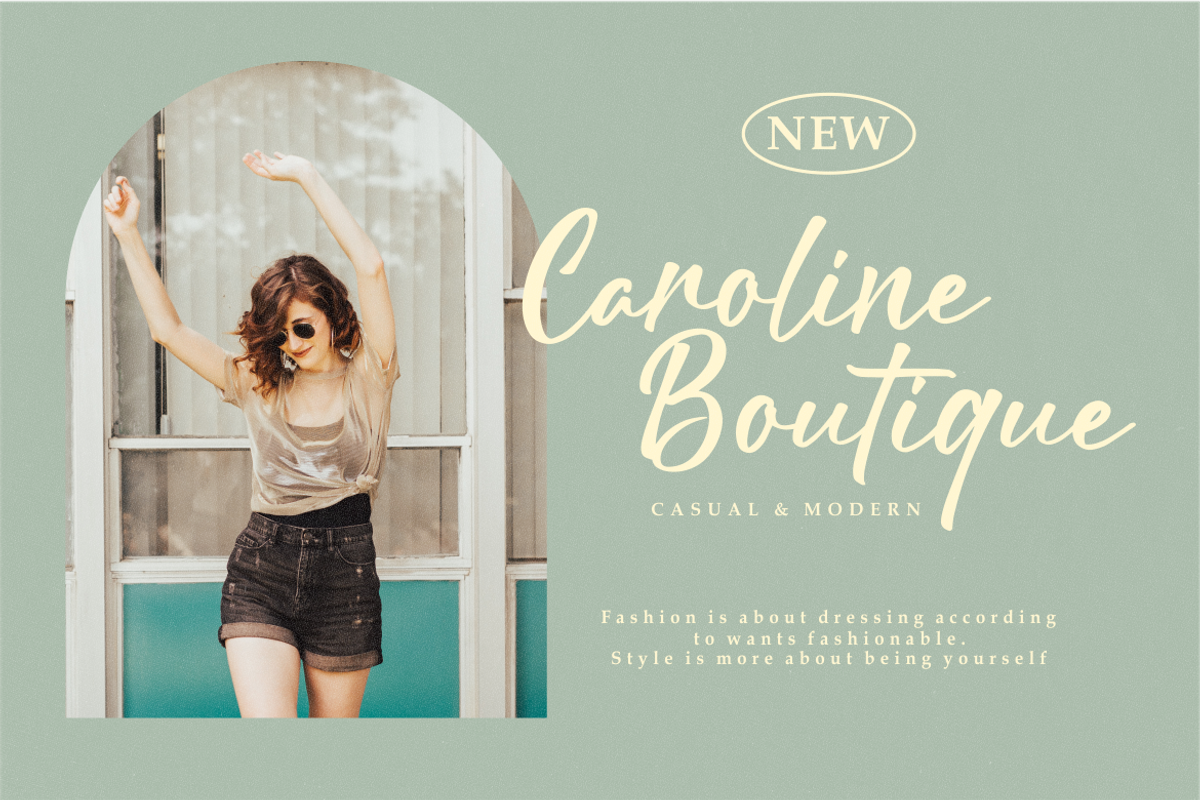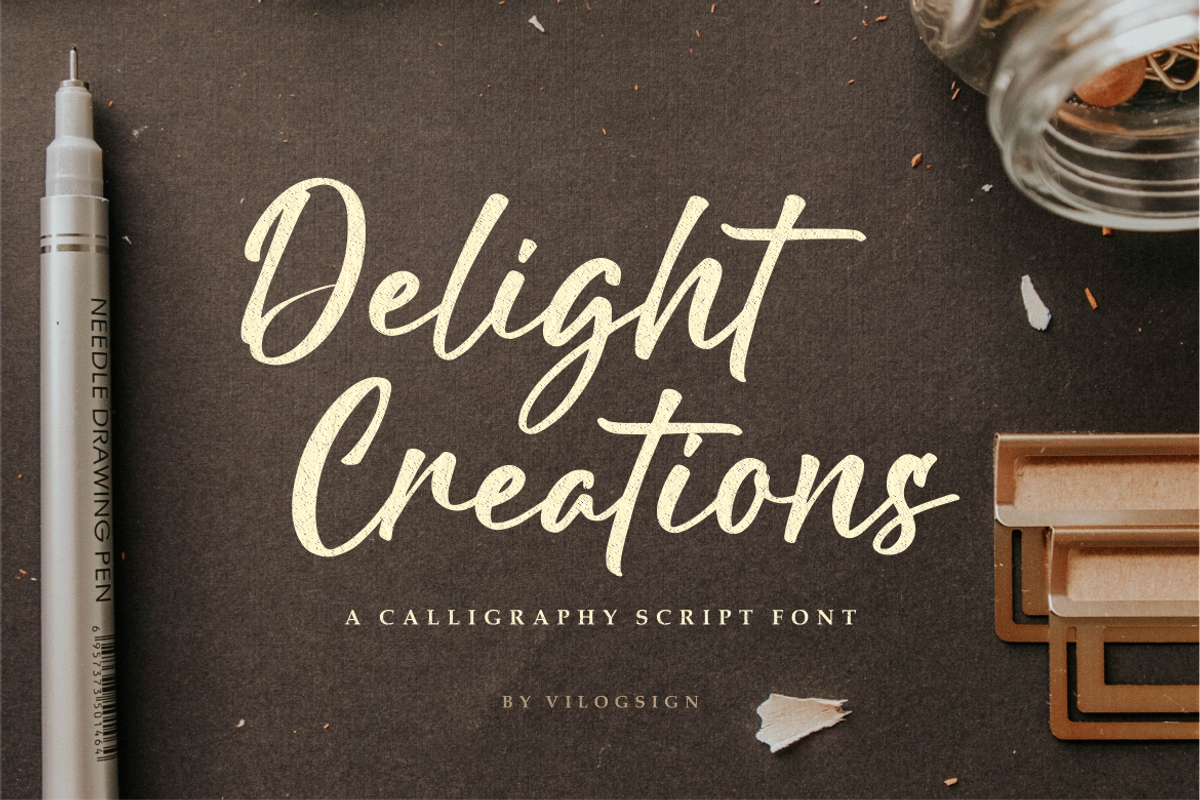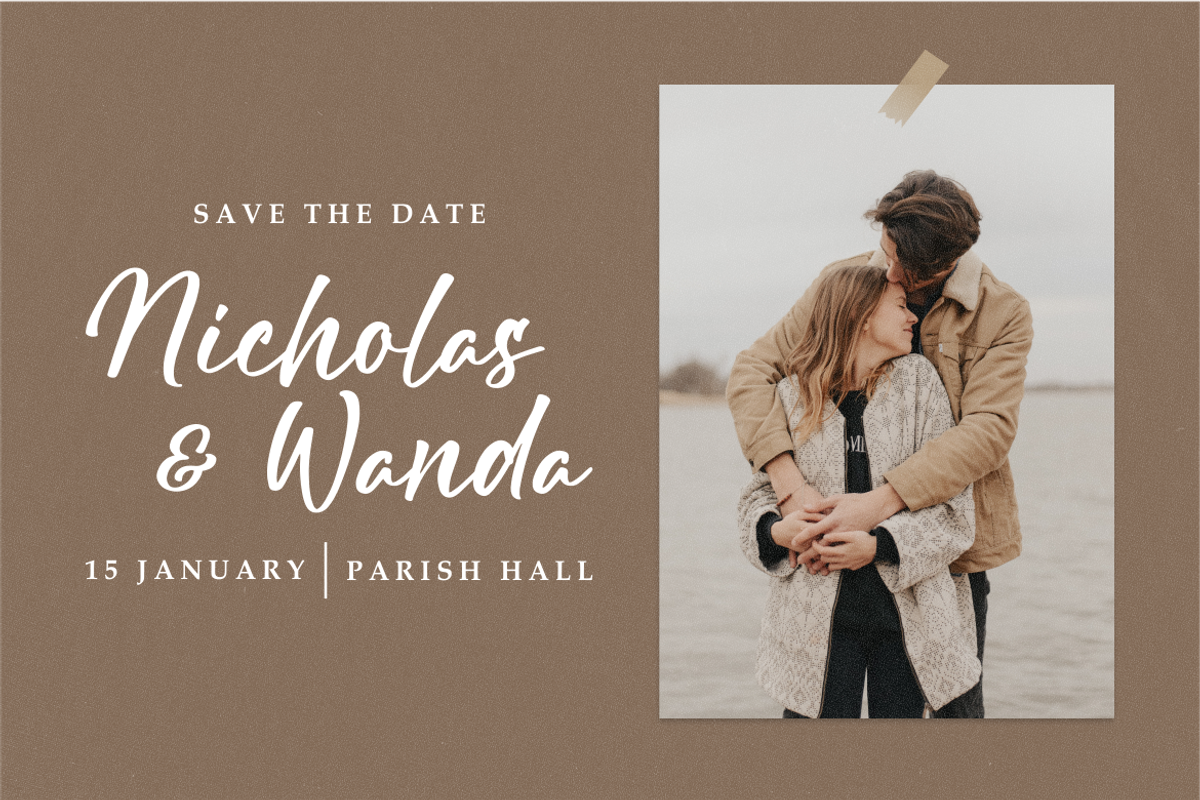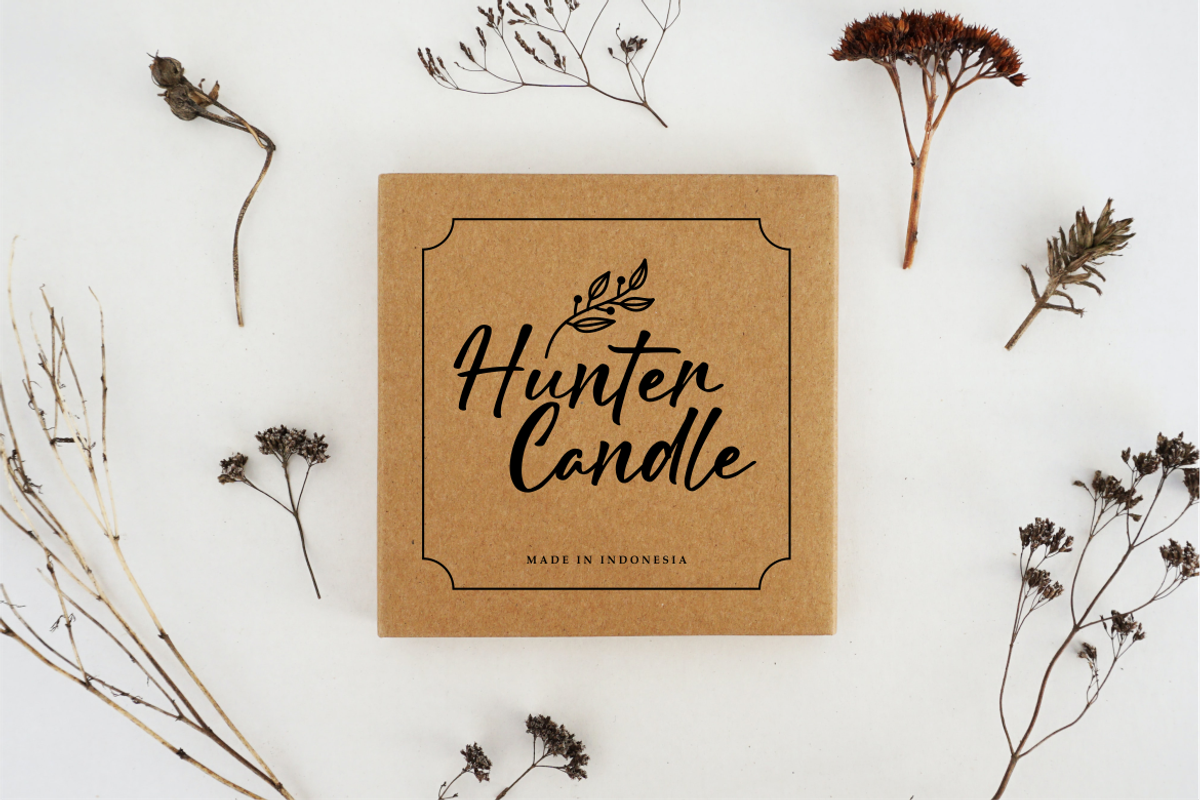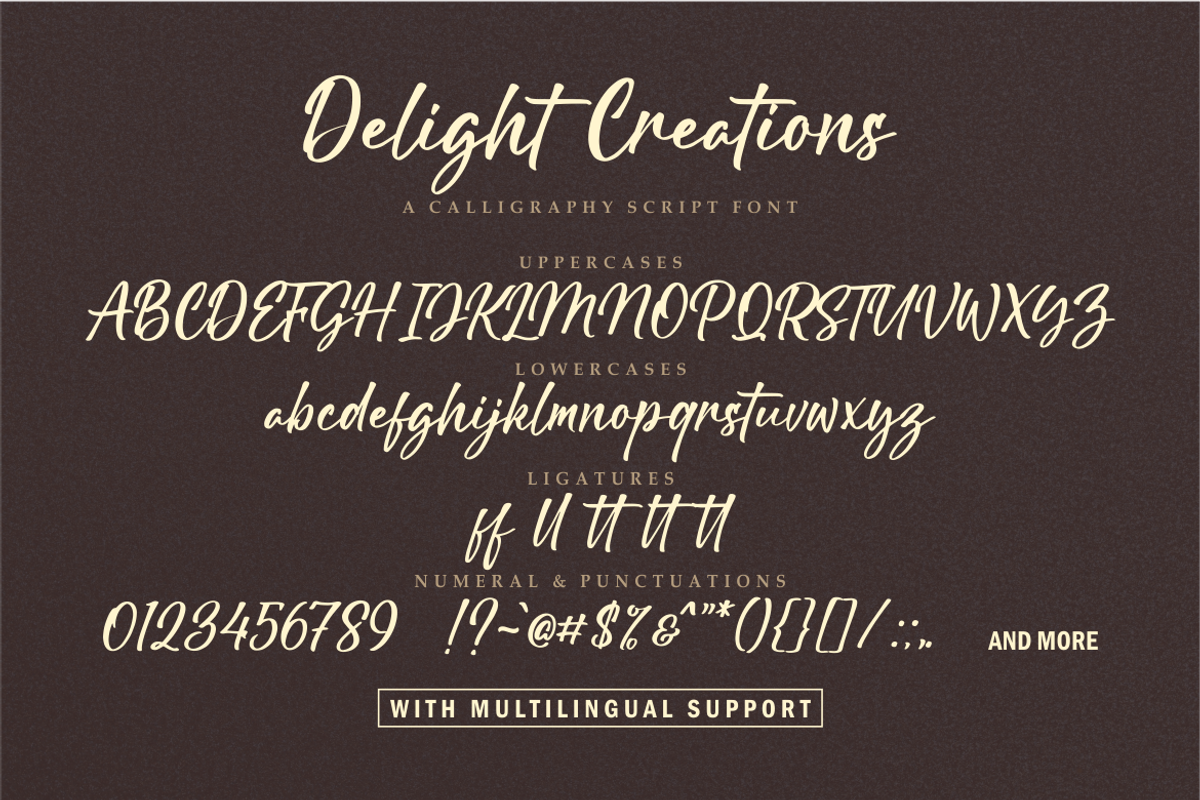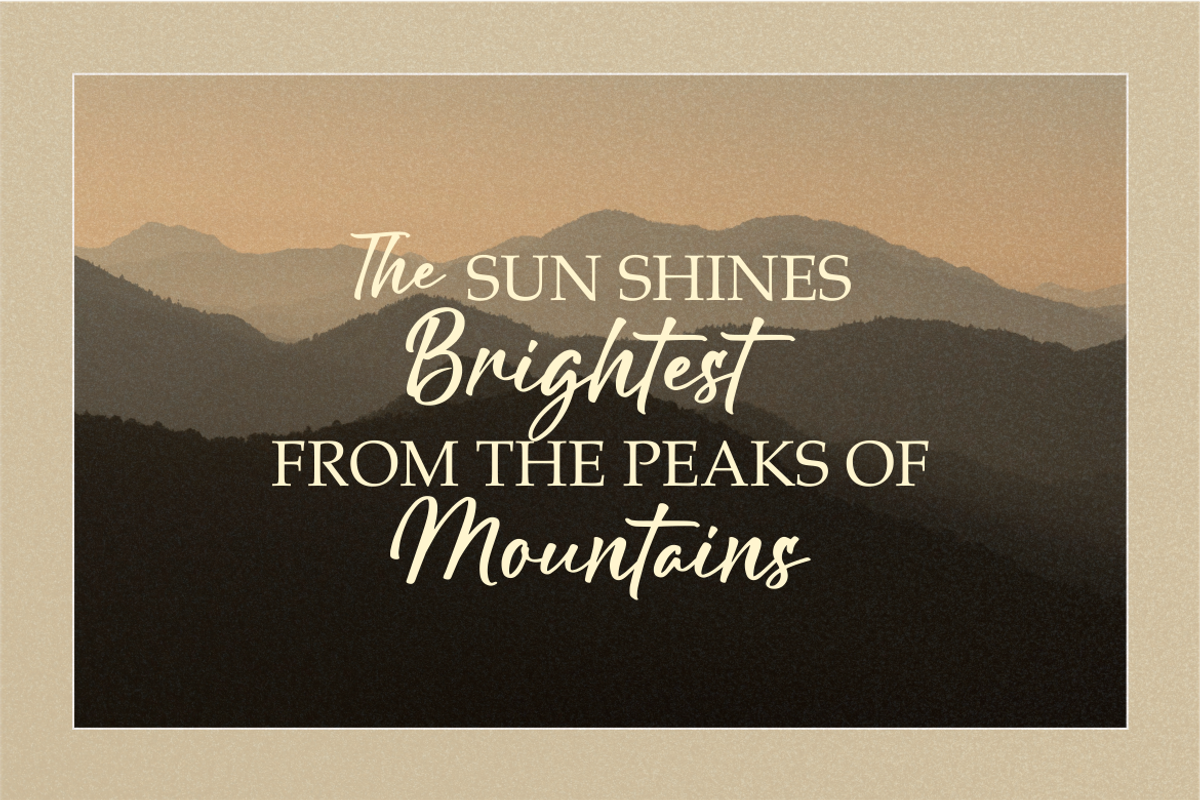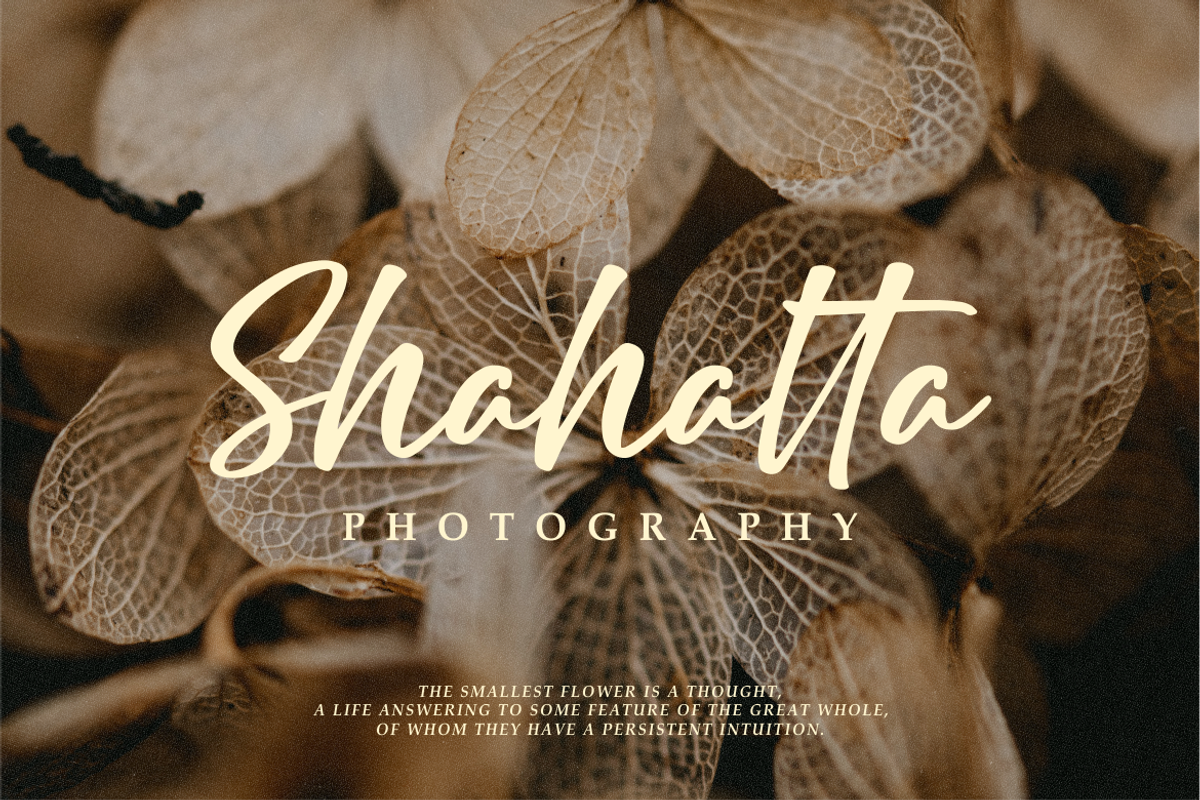
Delight Creations a Script Font
Hi,,, Introducing "Delight Creations" a Calligraphy Script Font!!!
Made with very serious to make this font unique, so perfect for your need. This font is very good with multilingual support to complete your need. Very suitable to make a branding, t-shirt, magazine, fashion, quotes, logo, packaging, and other.